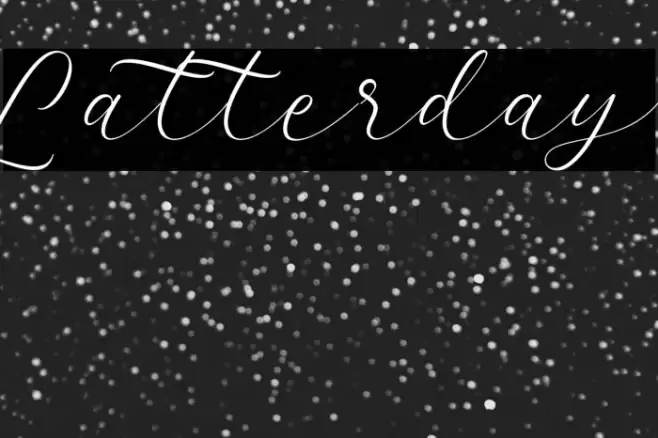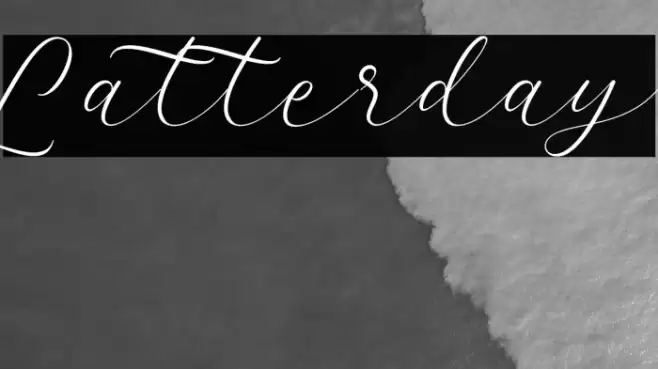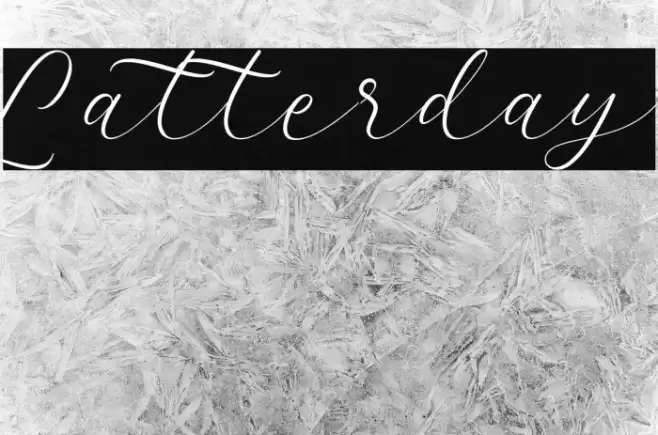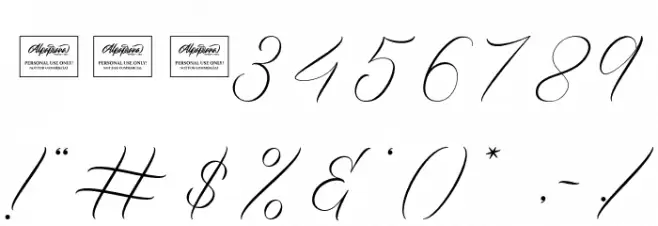
Latterday Font
Latterday Description
This elegant script font features fluid, cursive strokes with a refined and sophisticated appearance. The uppercase letters are gracefully elongated, while the lowercase characters maintain a consistent flow, creating a harmonious balance. The numerals and special characters are designed with the same attention to detail, ensuring a cohesive look across all elements. The font's delicate lines and smooth curves make it ideal for projects that require a touch of elegance and class. Its overall style is both timeless and versatile, suitable for a variety of design applications.
An elegant script font with fluid, cursive strokes and a refined appearance from Regular fonts.
- Proposed Projects: Wedding invitations, luxury branding, elegant stationery, and high-end product packaging.
- Overall Style: Elegant
- Use Case: Logos, Invitations, Branding